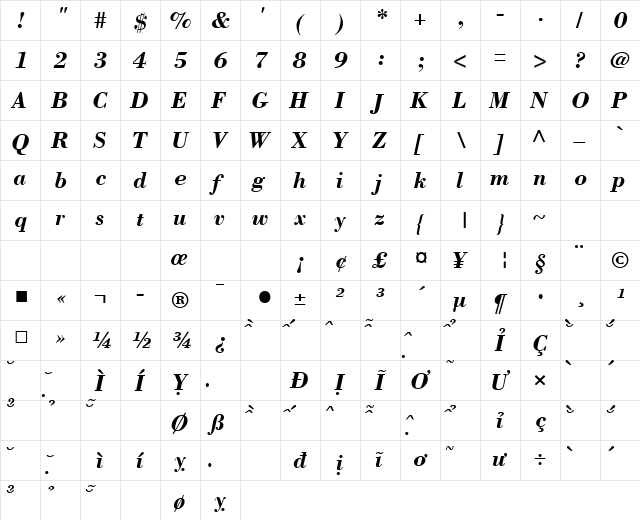
VNI-Bodon Bold-Italic
Design Context for VNI-Bodon Typeface
VNI-Bodon is a composed and adaptable typeface that performs quietly and consistently across a wide range of design contexts. The slanted form adds forward momentum and visual energy. Its bold stroke weight gives it real presence on the page.
Pro Tip: Try VNI-Bodon for annotation and caption copy alongside an upright companion — the contrast in angle creates a dynamic but ordered typographic system.